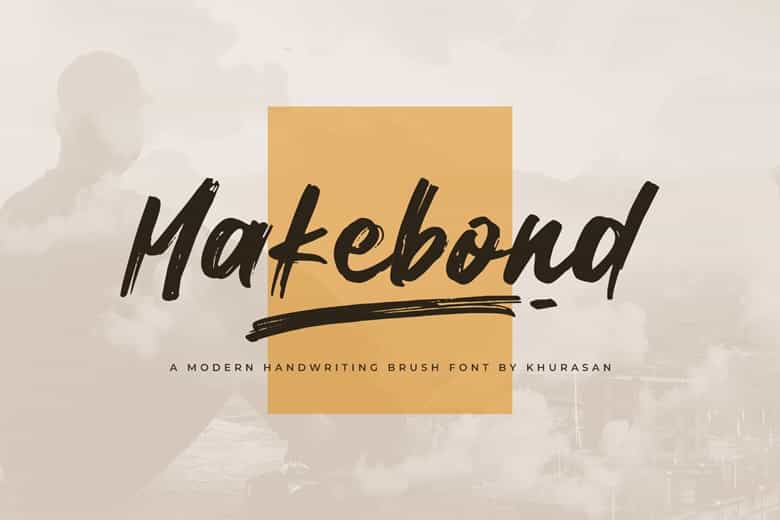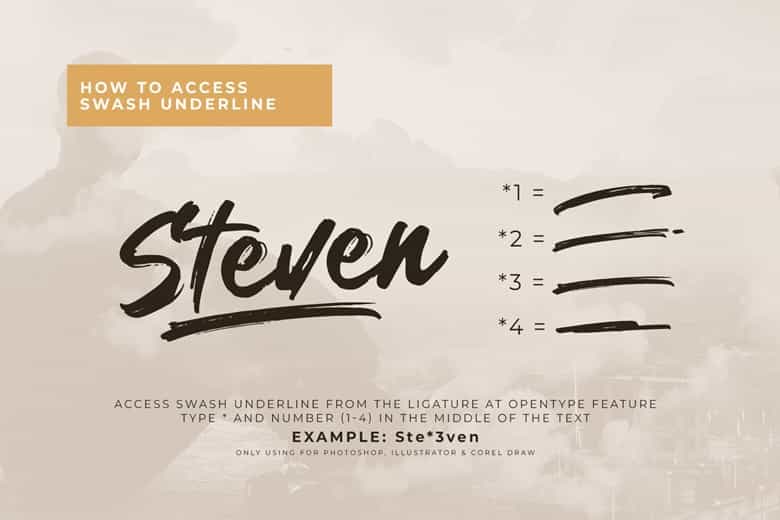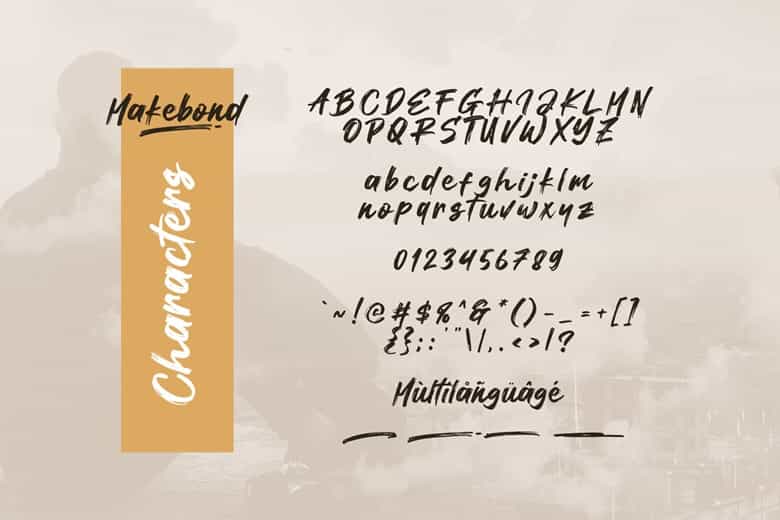
Discover Makebond Font, part of the Brush collection—a versatile and unique font perfect for adding a personal touch to your projects. Download it for free and enjoy crafting designs with style, from invitations to social media posts. This font is available exclusively for personal use, giving you the freedom to create without limits. Unlock your creativity with Makebond Font today!
Makebond is a new brush font that will be suitable for posters, logos, magazines, book covers, banners, and much more! Get this fun display font and use it for great designs! It can easily be matched to a very vast list of projects, so add it to your list of creative ideas and see how it enhances them!